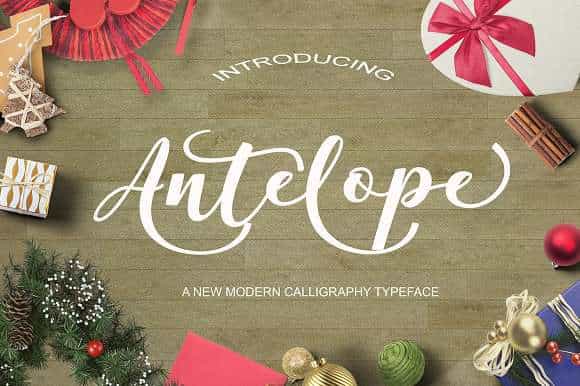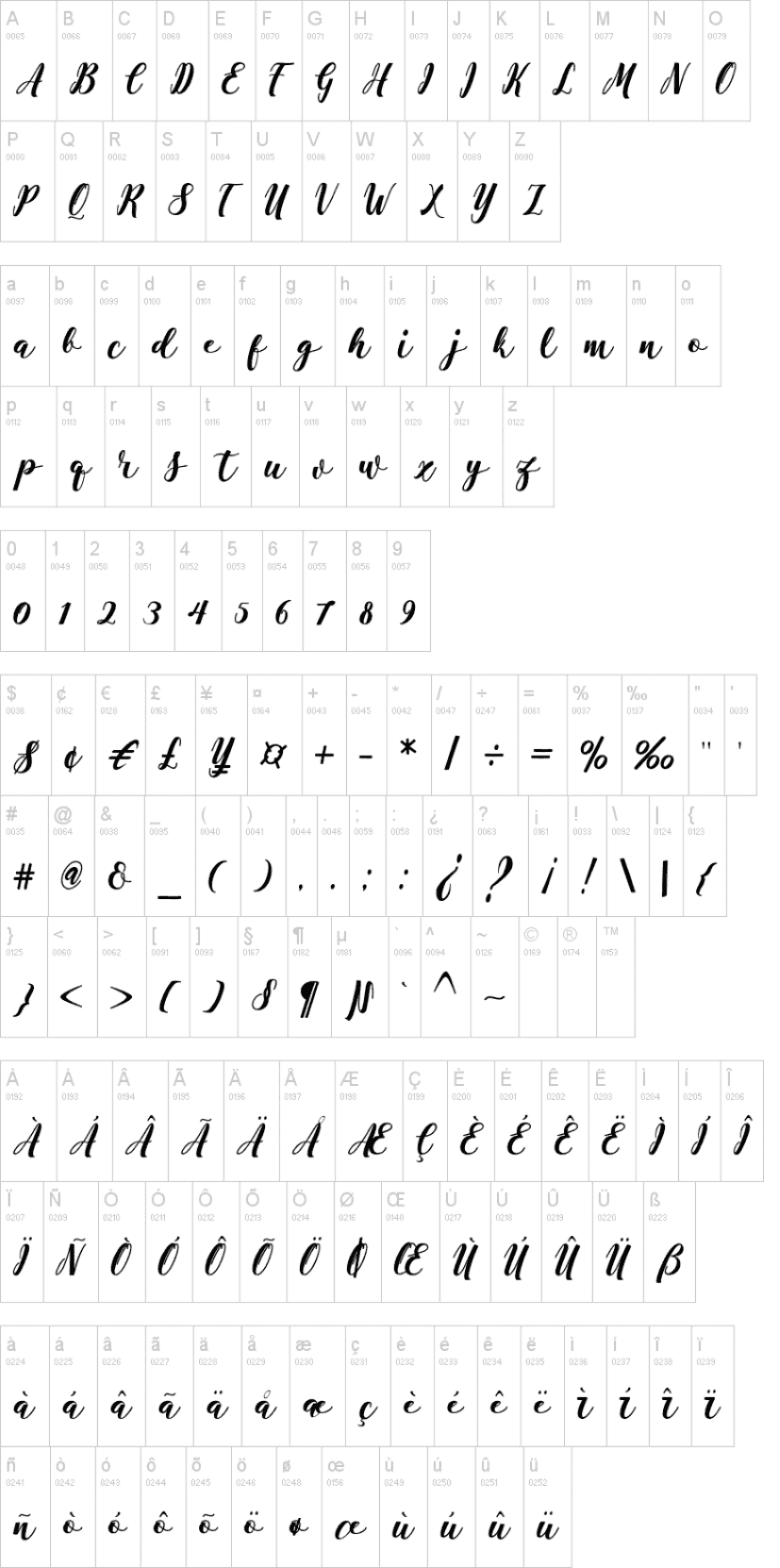
The Antelope font is a modern calligraphy font that was drawn entirely by hand, and this adds to its uniqueness. It looks modern and quite different from the previous version, which looks very organic.